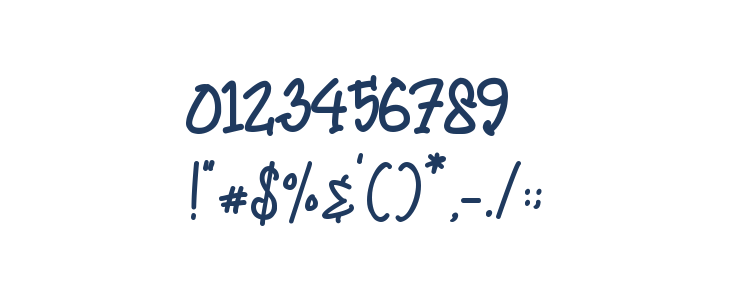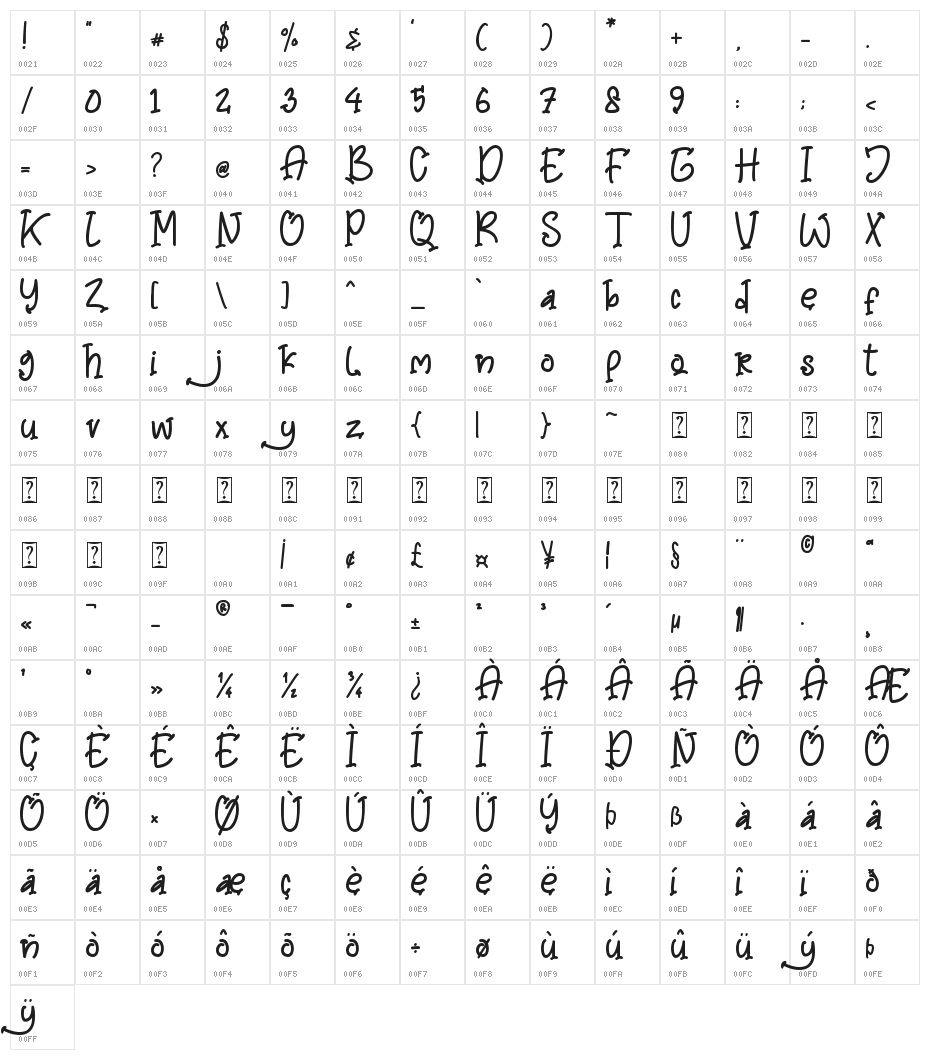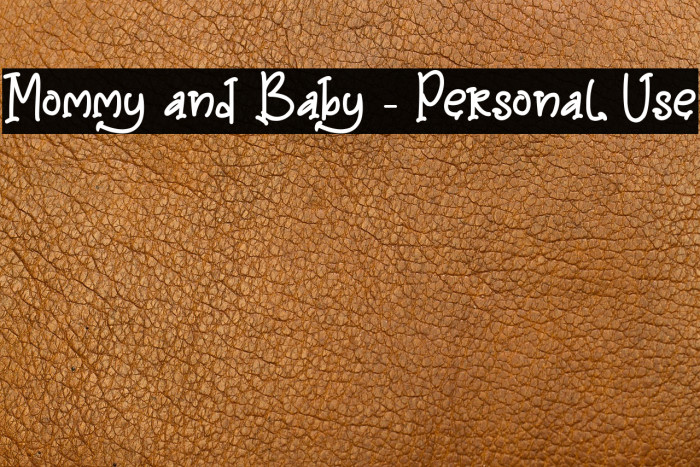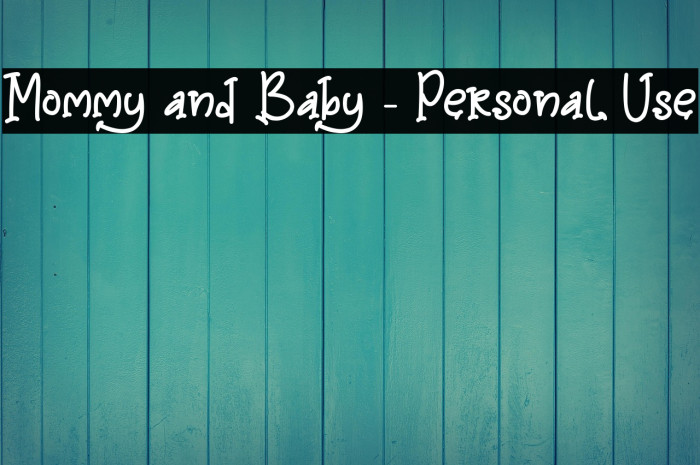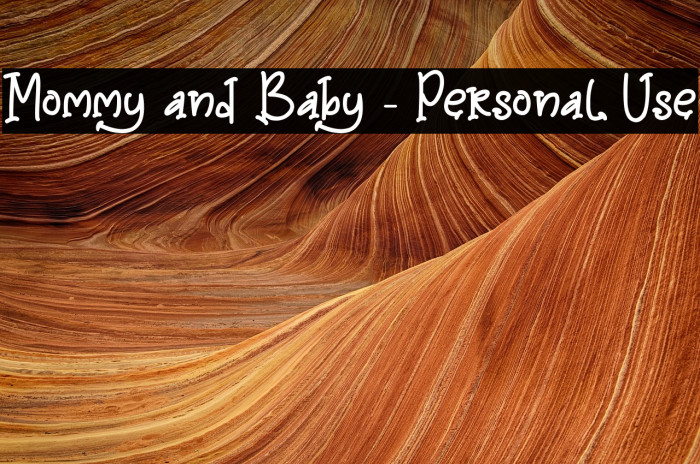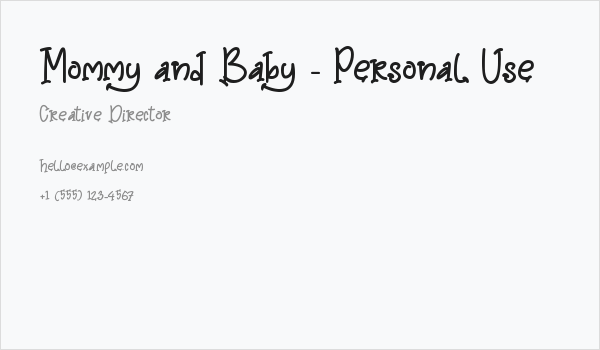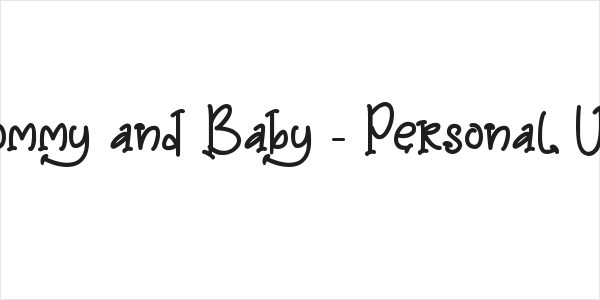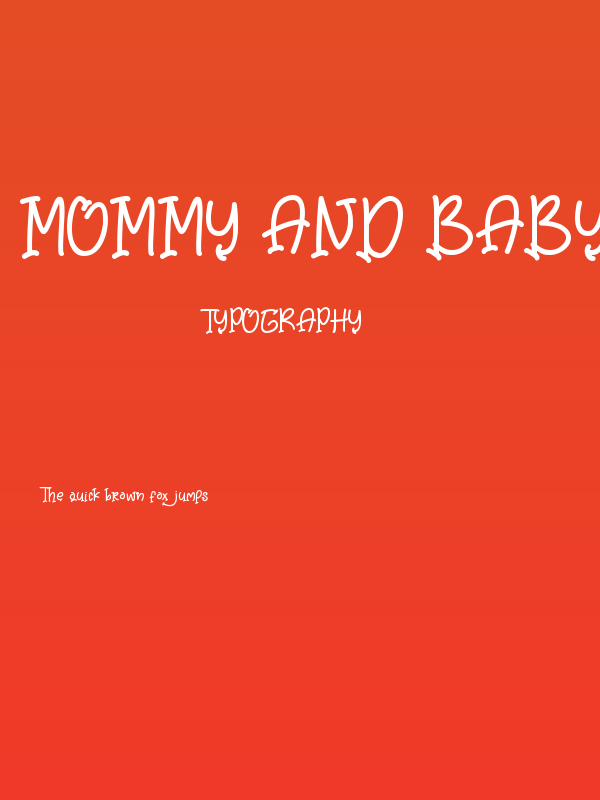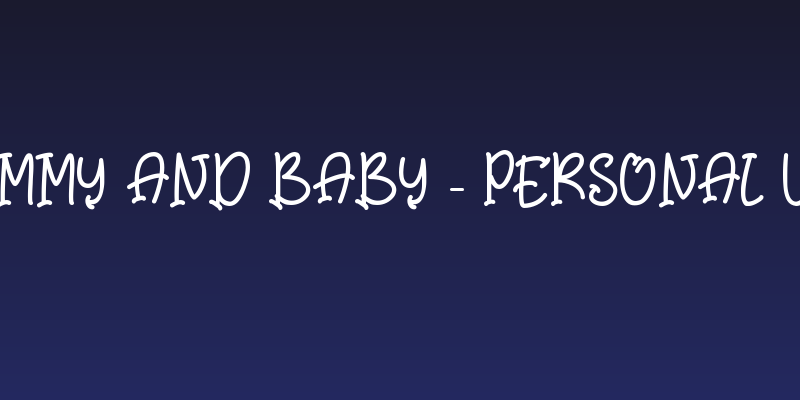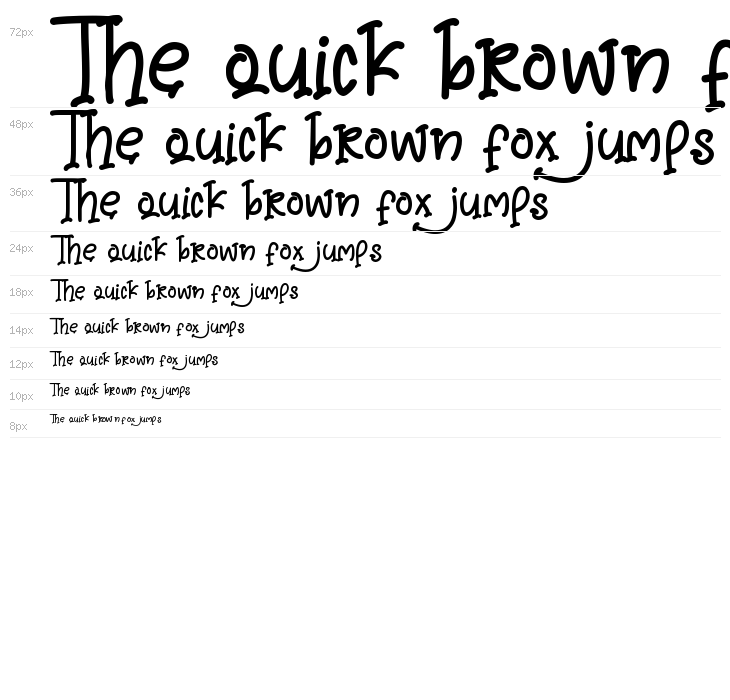
Mommy and Baby - Personal Use Font
Mommy and Baby - Personal Use Description
This playful and whimsical font features a handwritten style with a casual and friendly appearance. The letters are slightly irregular, adding a personal touch that mimics natural handwriting. The uppercase and lowercase characters maintain a consistent flow, with rounded edges and smooth curves. The numbers and special characters are designed to match the overall style, ensuring a cohesive look. This font is perfect for projects that require a warm and inviting feel, such as children's books, greeting cards, or personal branding.
| Proposed Projects | Ideal for children's books, greeting cards, personal branding, and playful designs. |